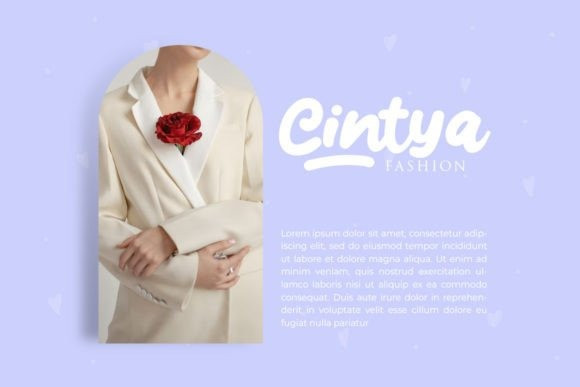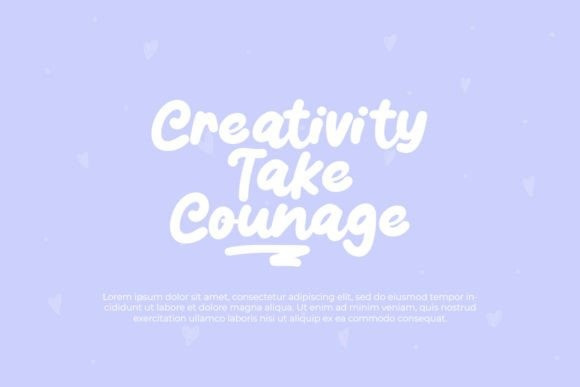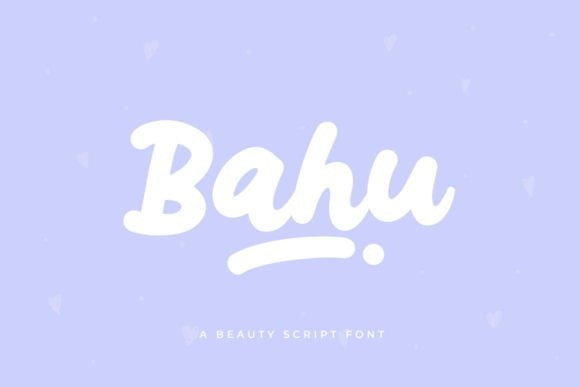
Bahu Script Font
Bahu Script Font is a fresh and unique handwritten font with a lovely twist. Get inspired by its playful and delicate vibe, and turn any design project into a stunner.